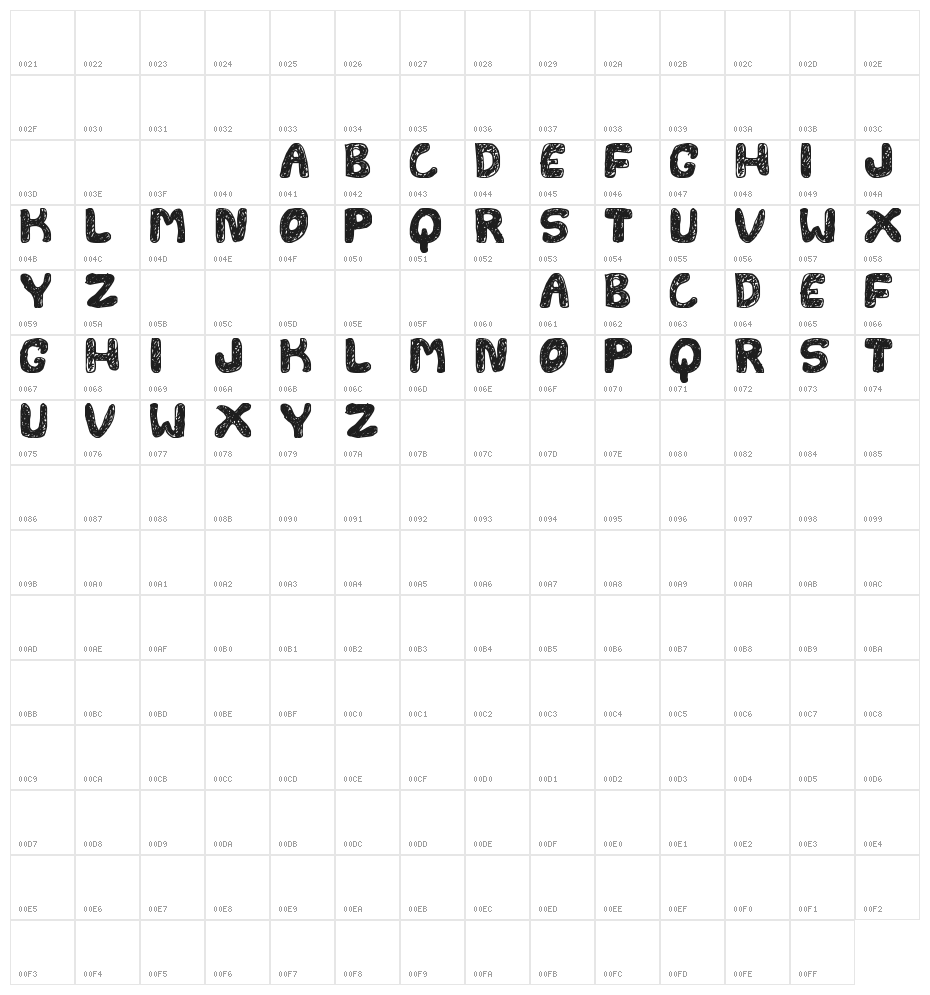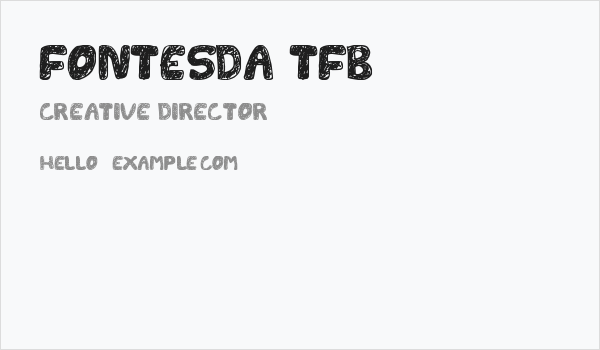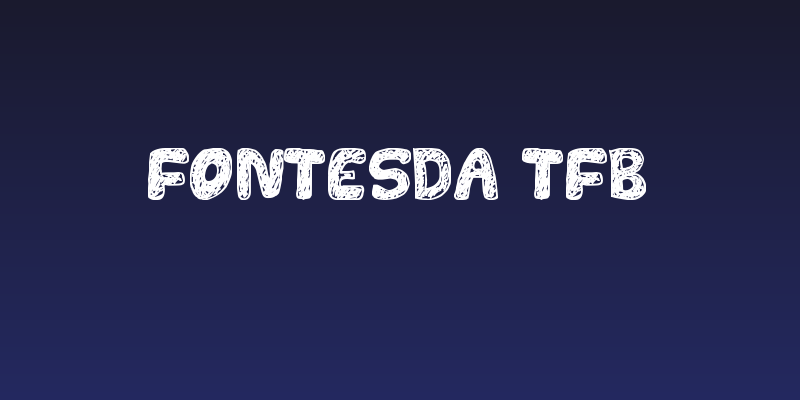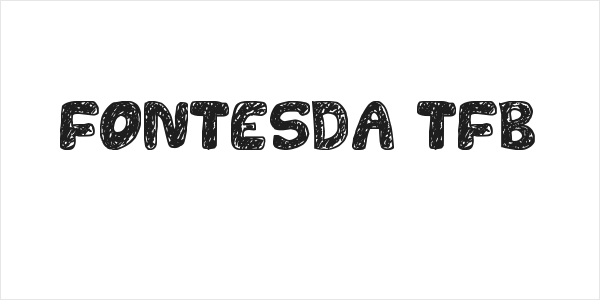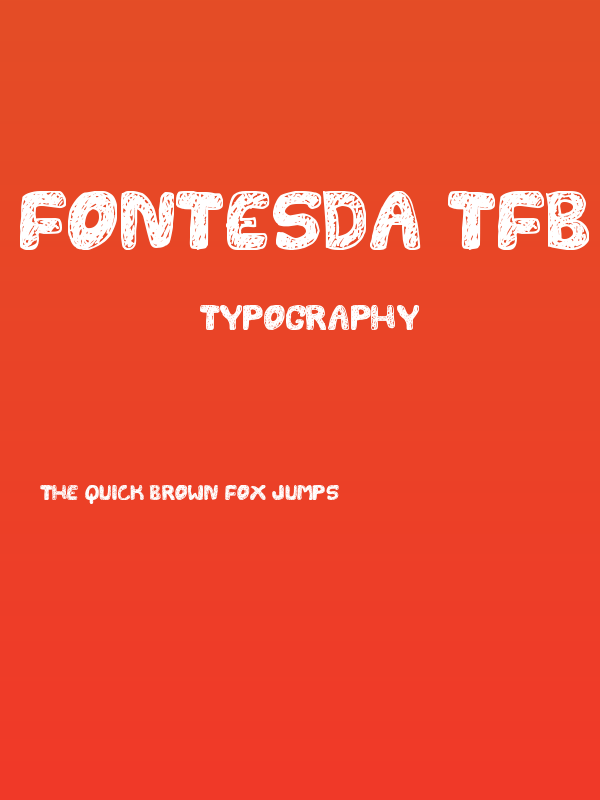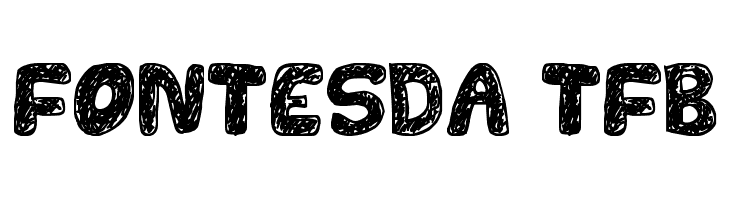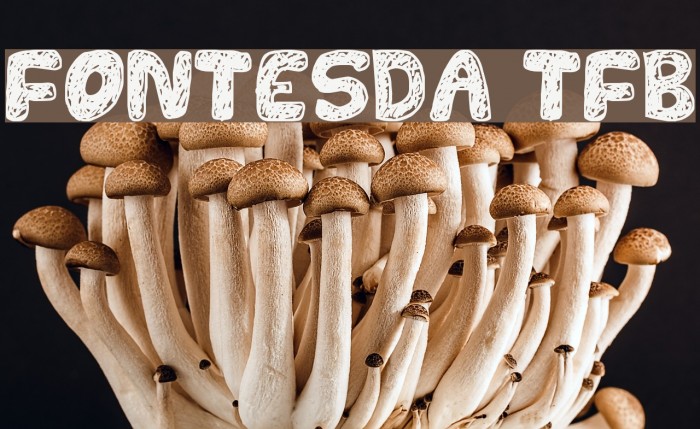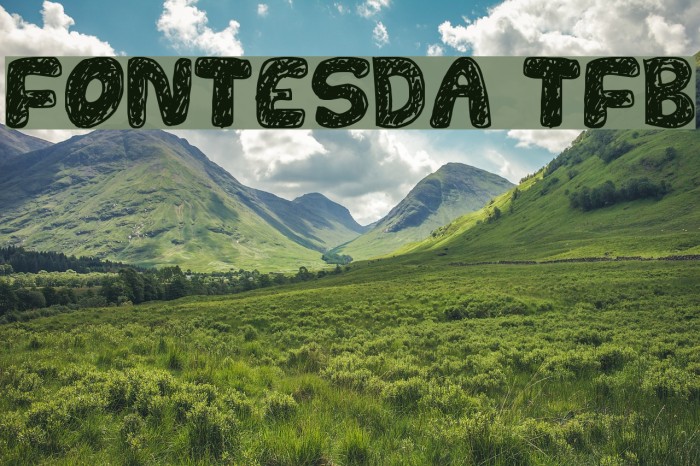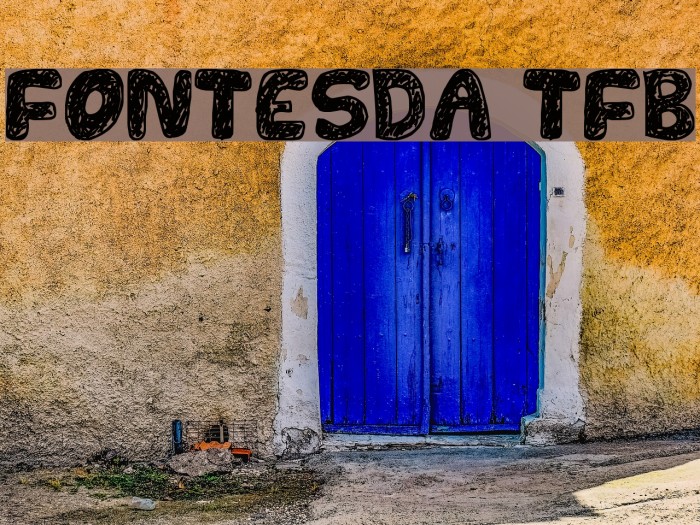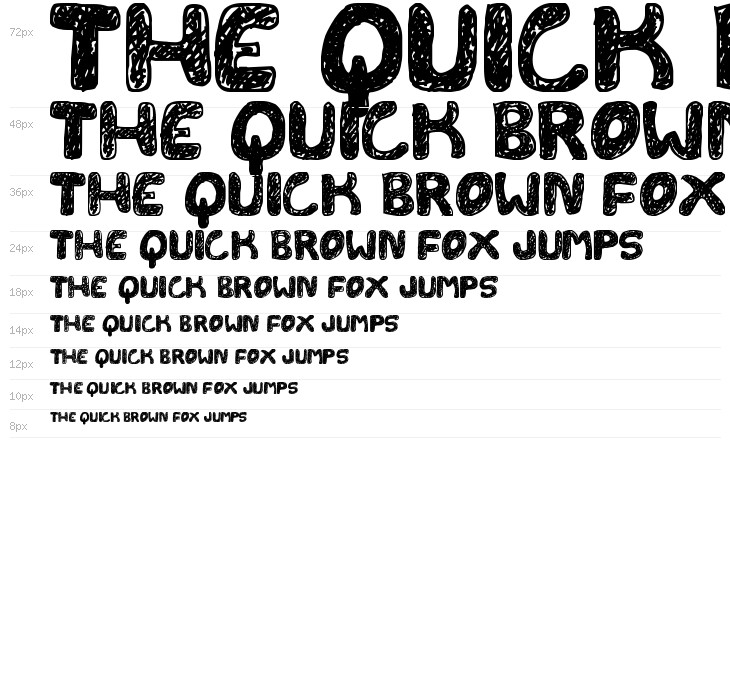
FONTESDA TFB Font
FONTESDA TFB Description
This font features a playful and artistic style, characterized by bold, rounded letters filled with intricate doodle-like patterns. The uppercase letters are uniform in height, creating a cohesive look, while the decorative elements within each character add a unique texture and visual interest. The font's whimsical nature makes it stand out, offering a sense of creativity and fun. It is well-suited for projects that require a touch of personality and flair, such as children's book covers, playful branding, or artistic posters. The overall appearance is both eye-catching and engaging, making it a versatile choice for various creative applications.
| Overall Style | Playful, Artistic |
| Proposed Projects | Children's books, playful branding, artistic posters, creative invitations. |